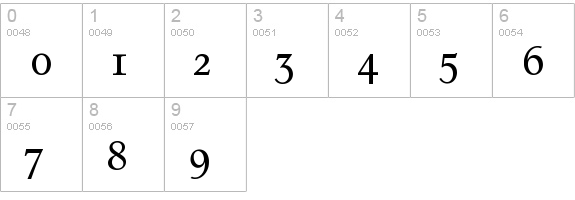
Concorde (R) Expert Regular Font Details
Concorde (R) Expert Regular is the standard, neutral variant in the Concorde typeface family \xE2\x80\x94 well suited to general body text, paragraphs, and standard typographic work.
Concorde (R) Expert Regular is a sophisticated and elegant font that exudes professionalism and refinement. Its sleek and modern design makes it perfect for a wide range of applications, from business documents to creative projects. The clean lines and well-balanced letterforms of Concorde (R) Expert Regular ensure readability and visual appeal. What makes this font even more appealing is that it is available for free download at FontsMarket.com. Yes, you read that right - you can easily access and use this high-quality font without any cost. Whether you need it for personal or commercial use, Concorde (R) Expert Regular is a versatile and timeless typeface that will elevate your designs to the next level. Download it today and add a touch of sophistication to your projects!